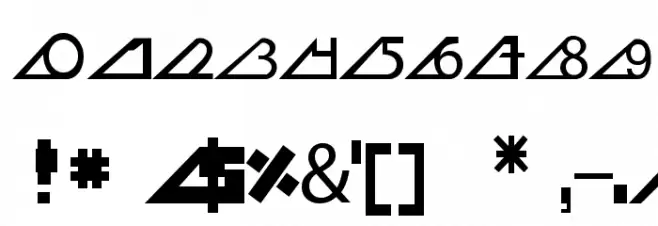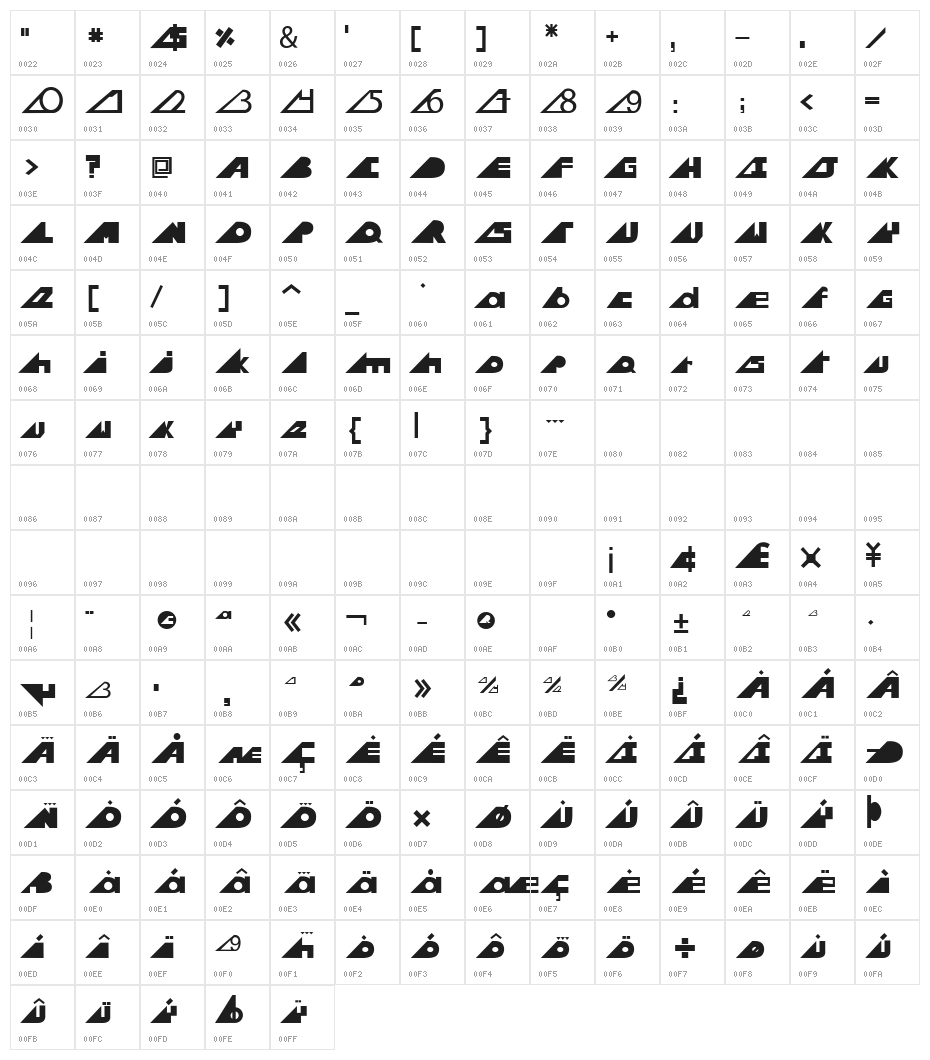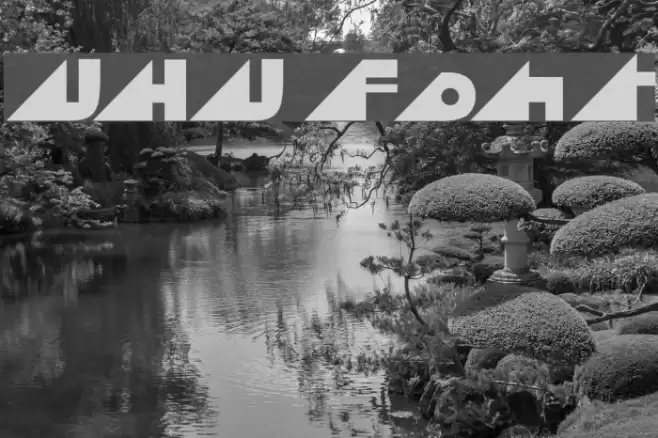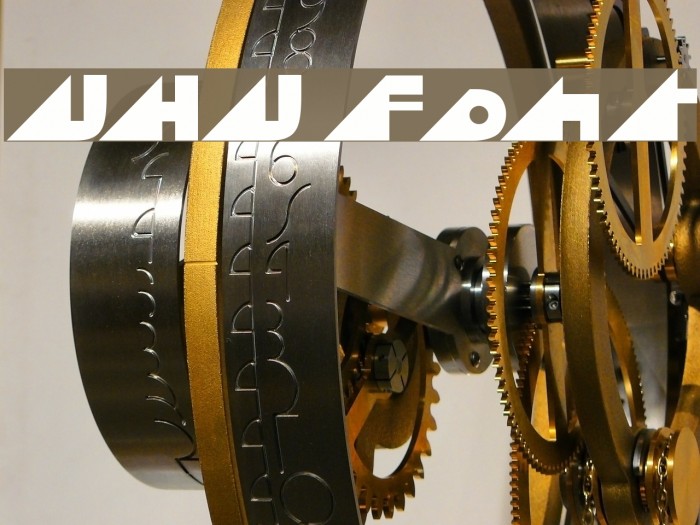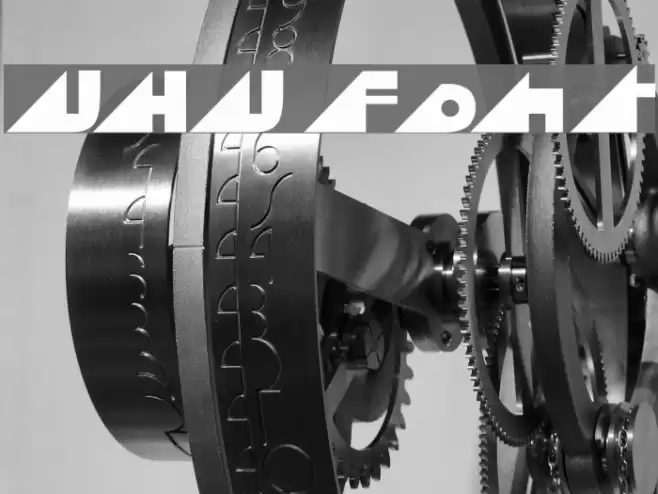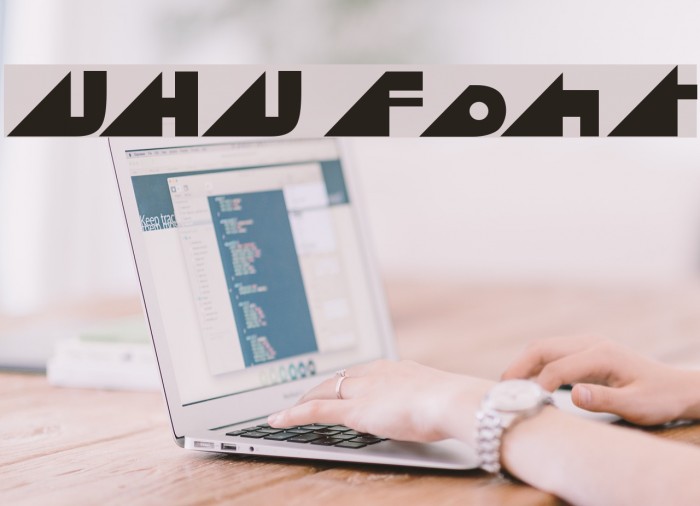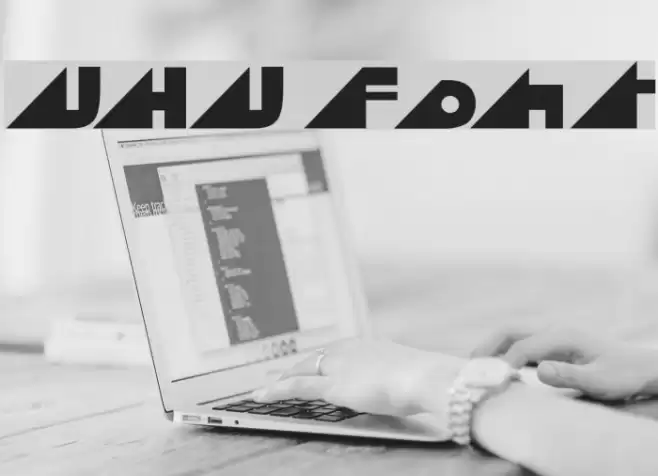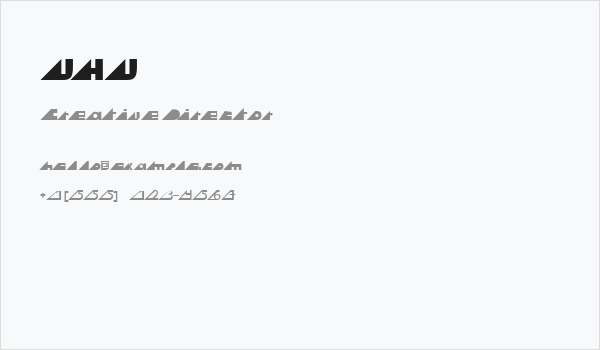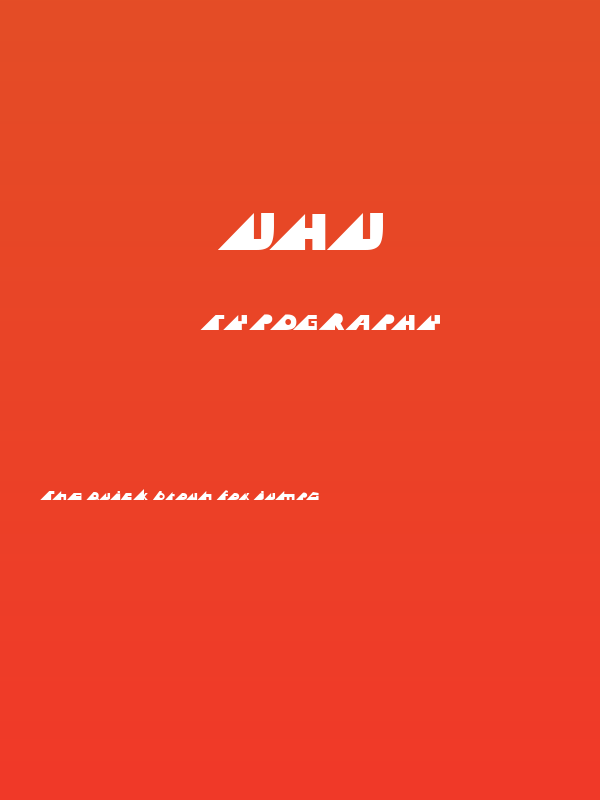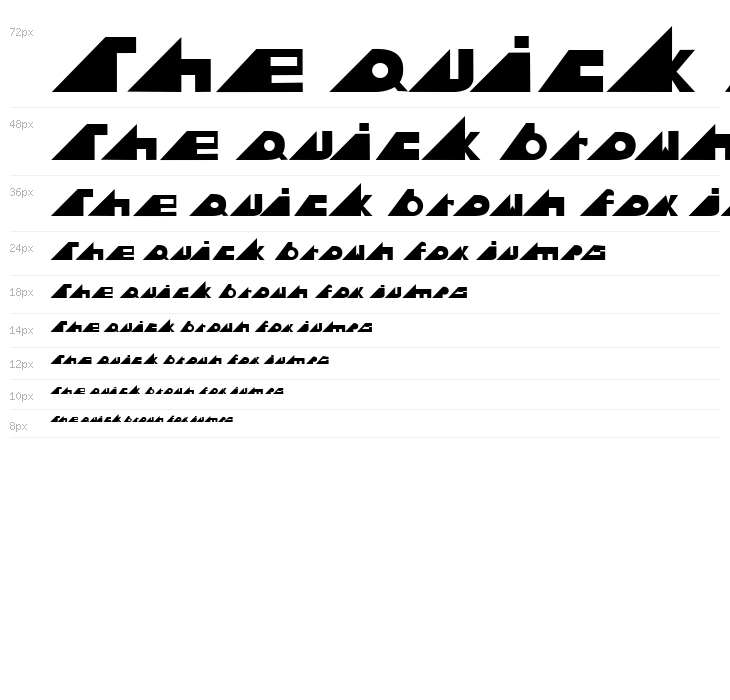
UHU Font
UHU Description
This font features a bold and geometric design with sharp angles and a futuristic aesthetic. Each character is constructed with a series of triangles and straight lines, creating a dynamic and edgy appearance. The uppercase and lowercase letters maintain a consistent style, emphasizing angularity and symmetry. Numbers and special characters follow the same geometric theme, ensuring uniformity across all glyphs. The font's unique style makes it stand out, ideal for projects that require a modern and unconventional look.
| Proposed Projects | Ideal for sci-fi themed designs, video game titles, tech branding, and modern posters. |